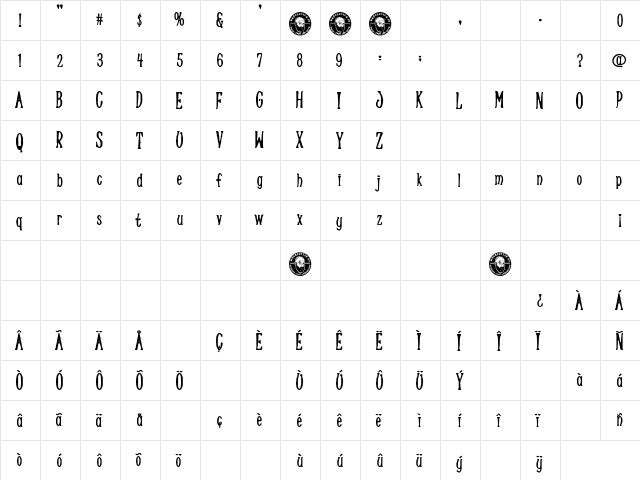
Graphic Lady Regular
| Designer | Woodcutter Manero |
Design Context for Graphic Lady Typeface
Graphic Lady takes a measured approach to typography — its balanced proportions and neutral character make it a reliable workhorse for both digital and print work.